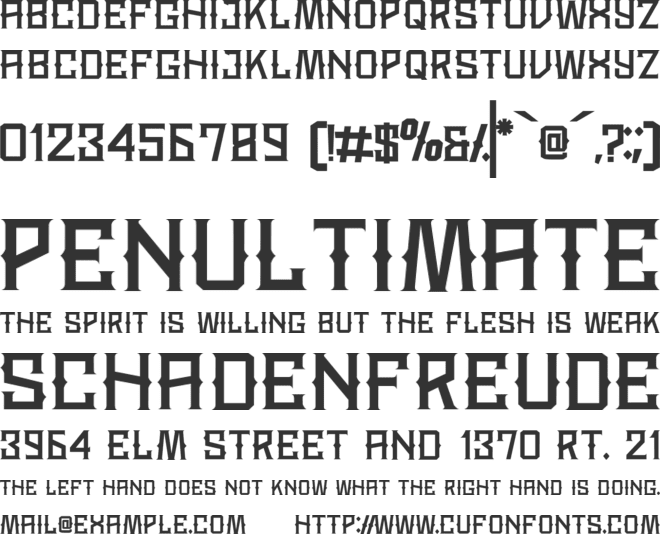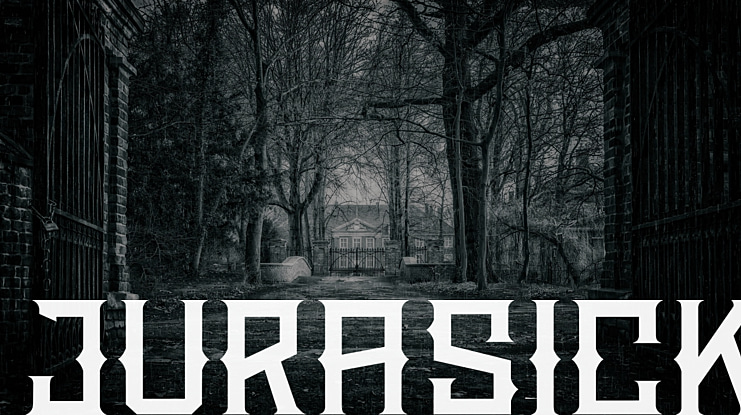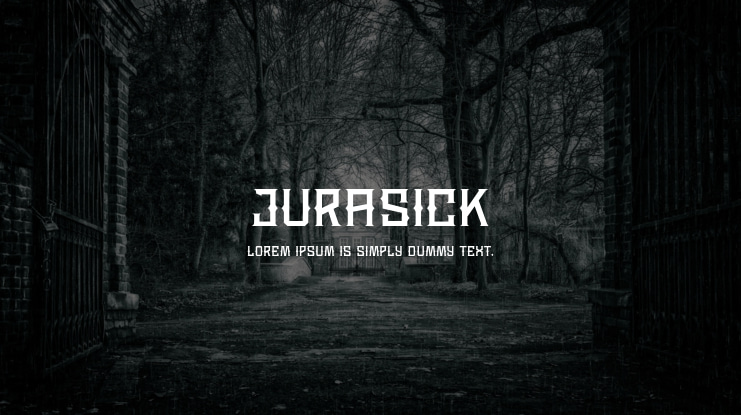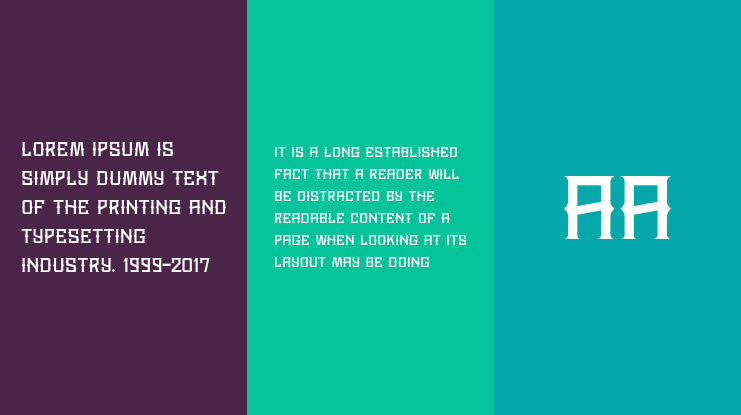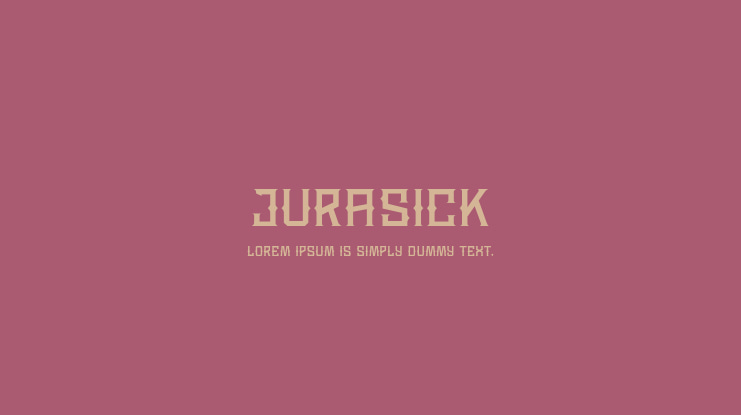
JURASICK Font
THESE JURASICK UPERCASE FONTS WOULD BE PERFECT TO COMBINE IN YOUR DESIGN ESPECIALY INCLUDE MULTILINGUAL SUPPORT THAT YOU NEEDS CREATED FOR EVERY DESIGN SUPPLY ON VINTAGE DESIGN THIS FONT ARE GREAT FOR LOGOTYPE DADGES CLOTHING
PEATURES ALSO MANY ALTERNATIVE STYLE TO IMPROVE YOUR DESIGN